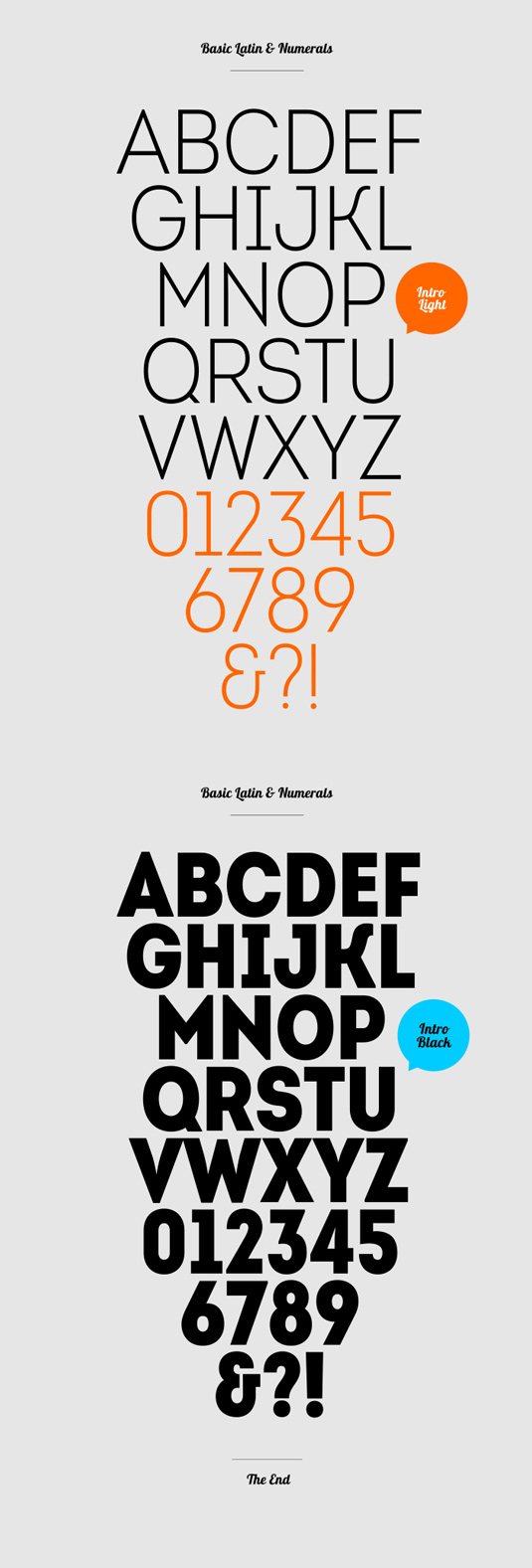
Font of the day: Intro Condensed
Intro Condensed from FontFabric
Intro Condensed is part of the Intro type system, which consists of 50 unique font styles and weights. A well-finished, geometric design, the Light and Black weights of Intro Condensed are currently available as a free download from FontFabric. Most suited to headlines of all sizes, Intro is also great for posters, T-shirts, logos and more.